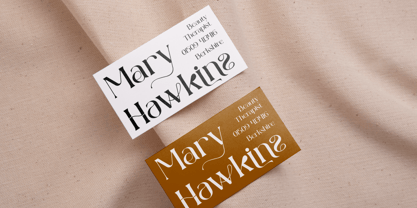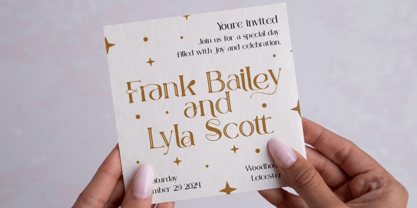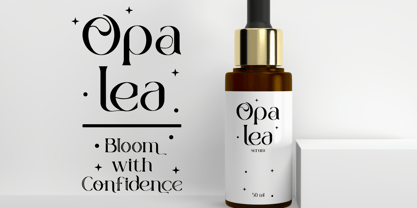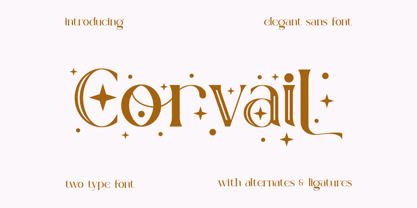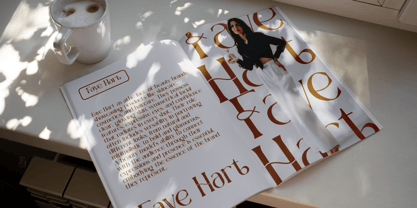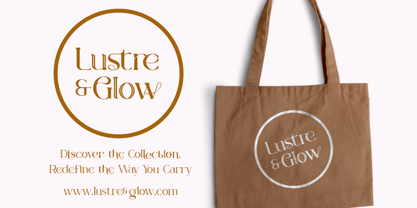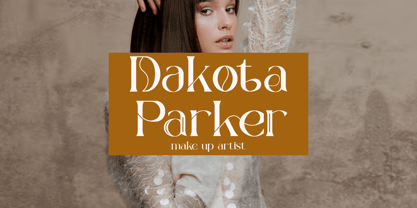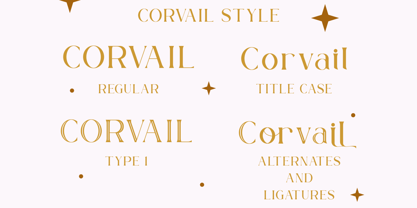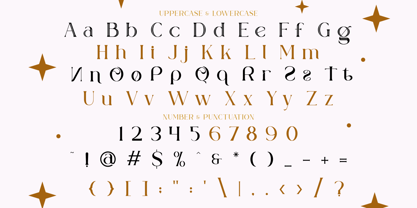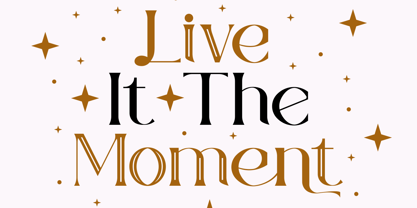
Corvail
by Putracetol
The Corvail Font Family was designed by Putra Novembria Candra Kusuma and published by Putracetol. Corvail contains 2 styles and family package options. More about this family
Introducing Corvail - Elegant Sans Font, a sophisticated typeface that seamlessly blends modernity with timeless elegance. This font boasts a unique serif display style with intricate alternates and ligatures, making it a versatile choice for designers. The carefully crafted letterforms feature sleek curves and subtle star-like embellishments that add a whimsical yet professional touch. Perfect for creating stunning logos, branding materials, wedding invitations, packaging designs, and more, Corvail elevates your projects with its refined and stylish aesthetic.
The design is showcased on a soft pastel background, emphasizing its graceful charm, while the warm brown-gold font color conveys luxury and sophistication. The playful integration of decorative elements, like dots and stars, ensures that Corvail stands out in any design setting. Whether you're working on editorial layouts, book covers, posters, or personalized stationery, this font delivers an unforgettable visual experience. Elevate your creativity with Corvail's distinctive and elegant sans-serif design.